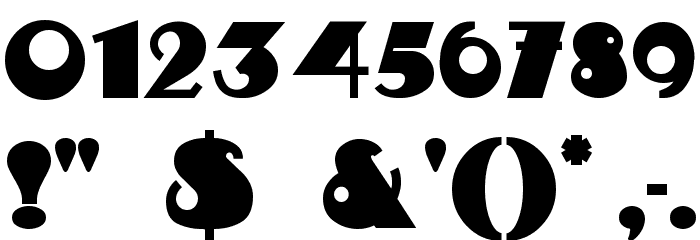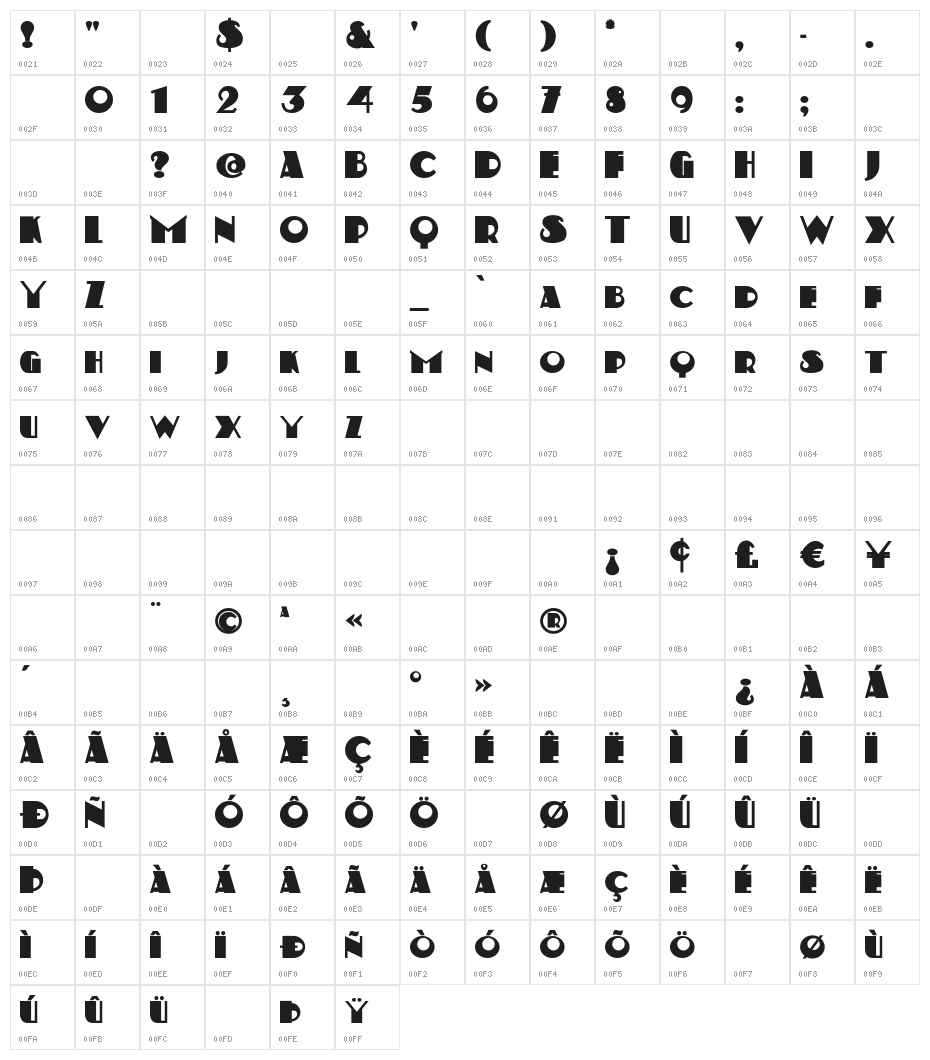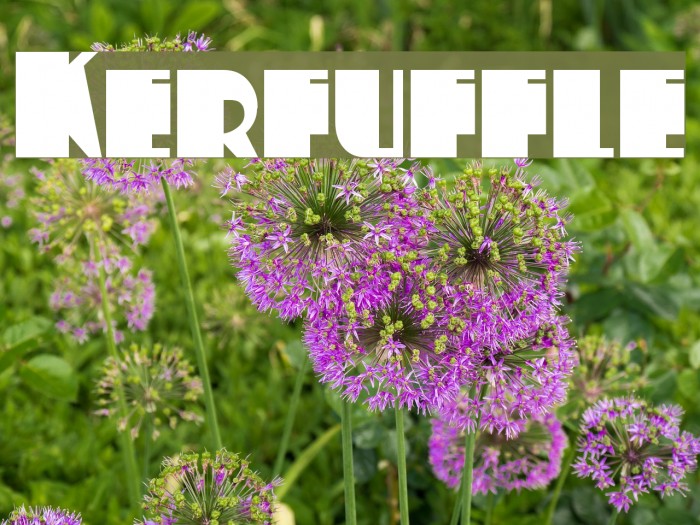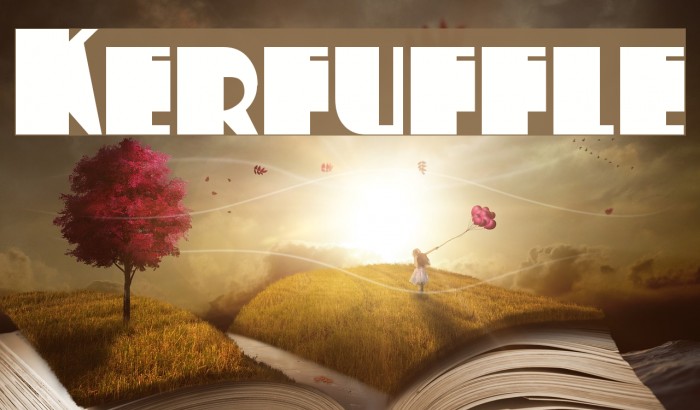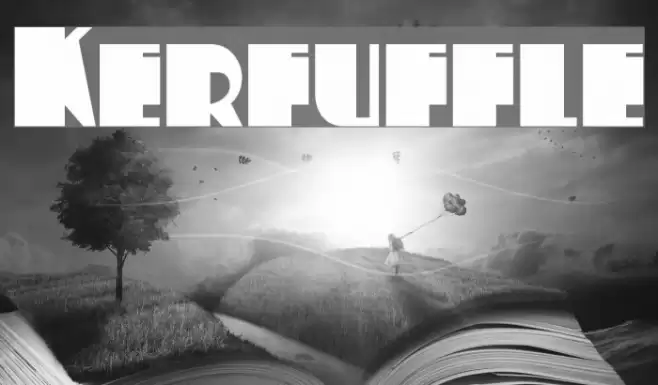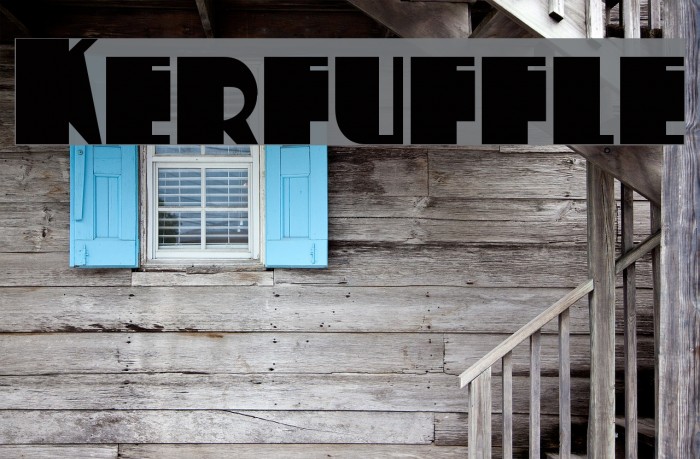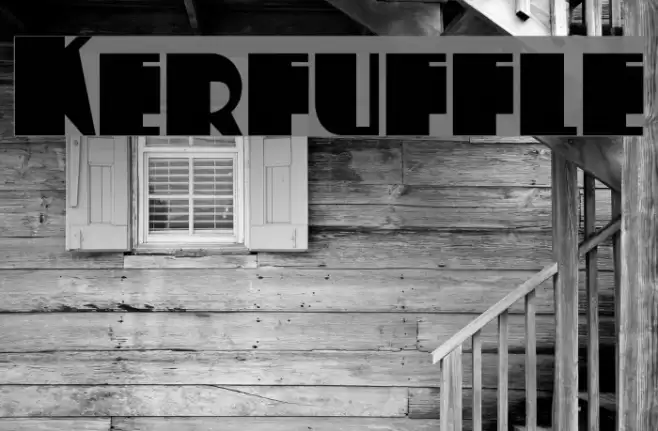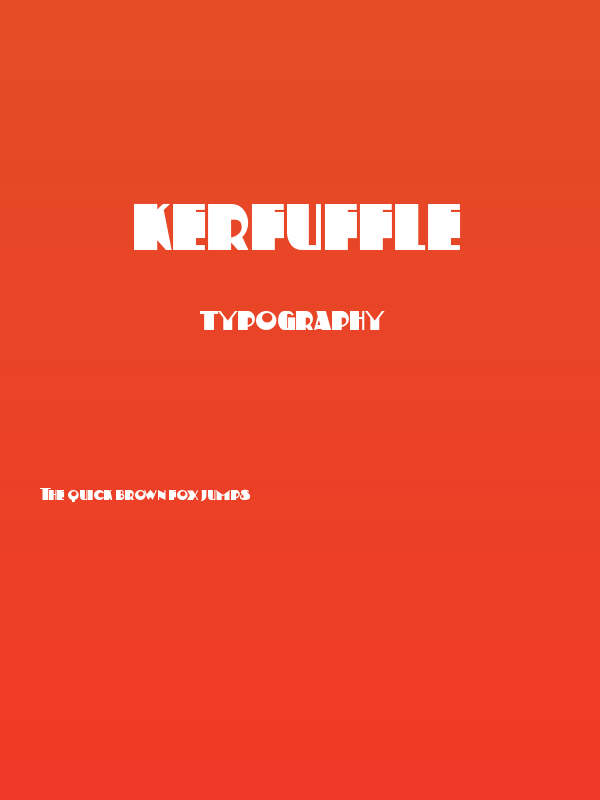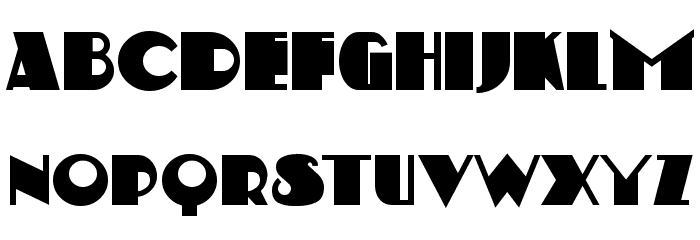
Kerfuffle Font
Kerfuffle Description
This font features a bold, geometric design with strong, angular lines and a distinct Art Deco influence. The characters are constructed with a combination of sharp edges and smooth curves, creating a dynamic and eye-catching appearance. The uppercase letters are particularly striking, with unique shapes that emphasize vertical and horizontal symmetry. The numbers and special characters maintain the same bold style, ensuring consistency across all elements. This font is ideal for making a strong visual impact, with its high contrast and dramatic presence.
| Proposed Projects | Perfect for branding, poster design, and any project requiring a bold, vintage aesthetic. |